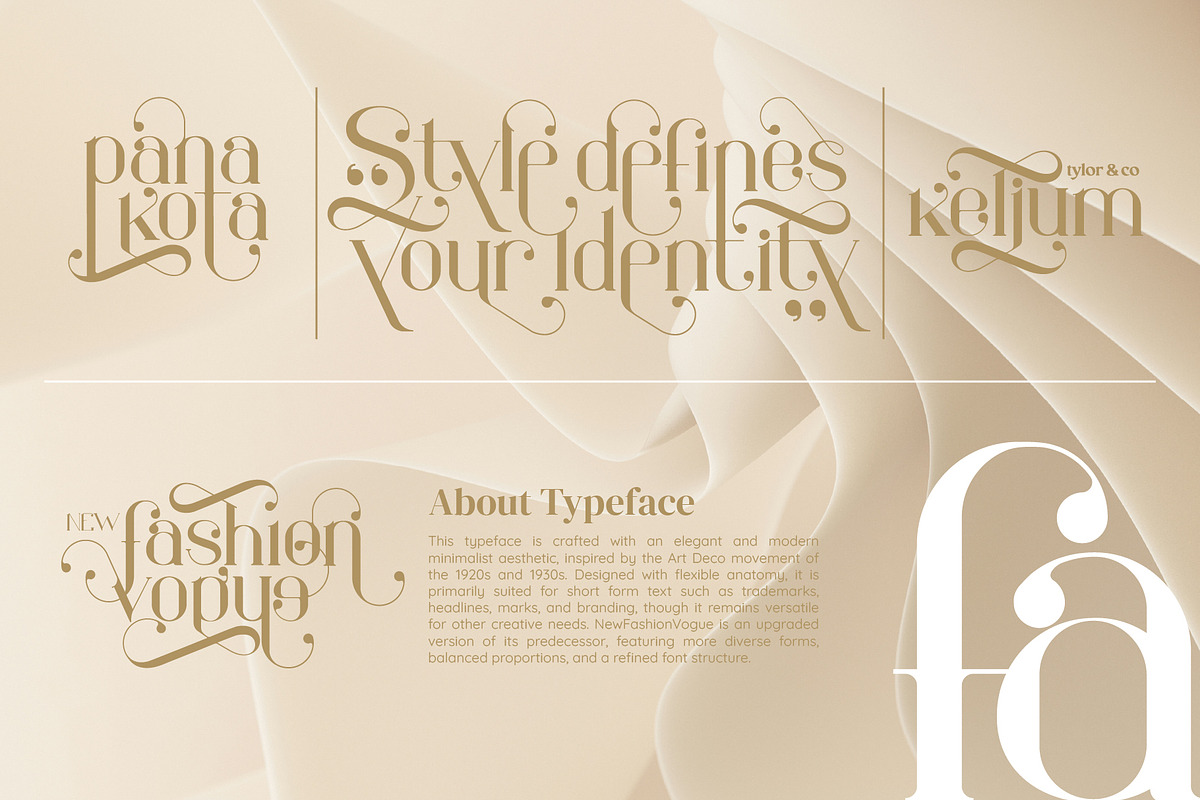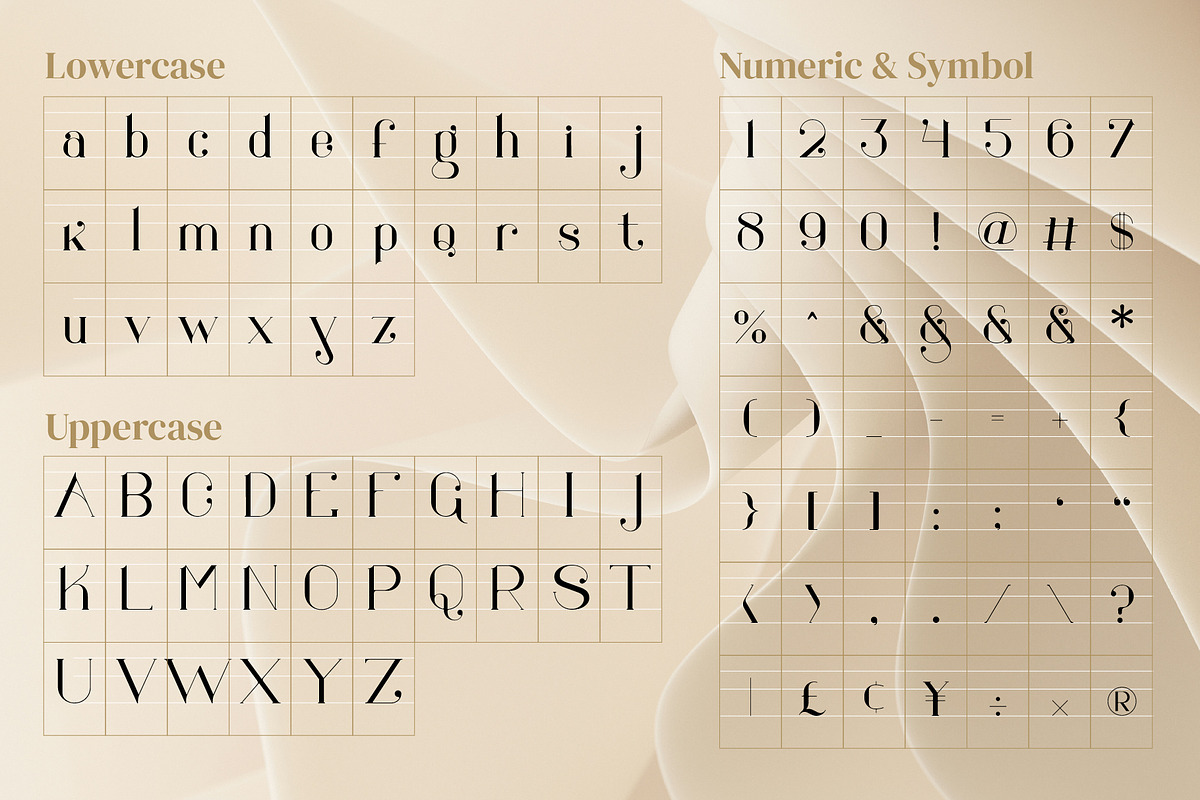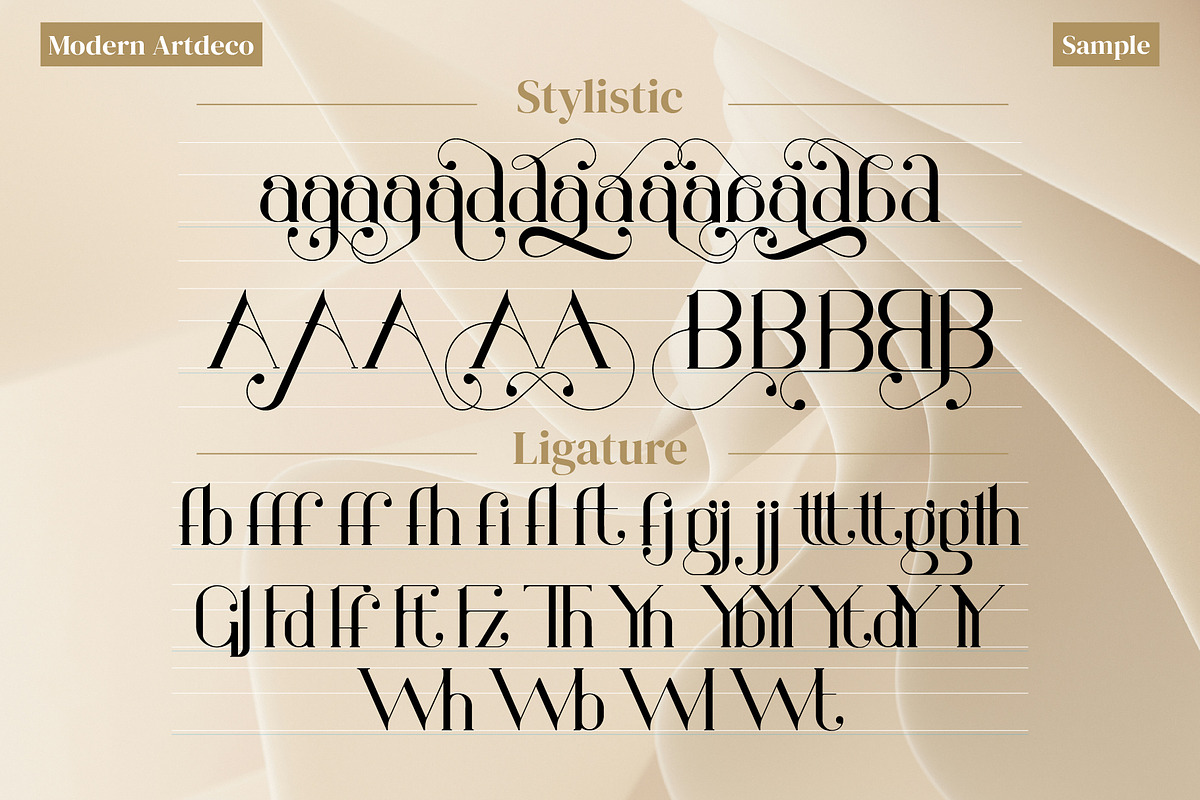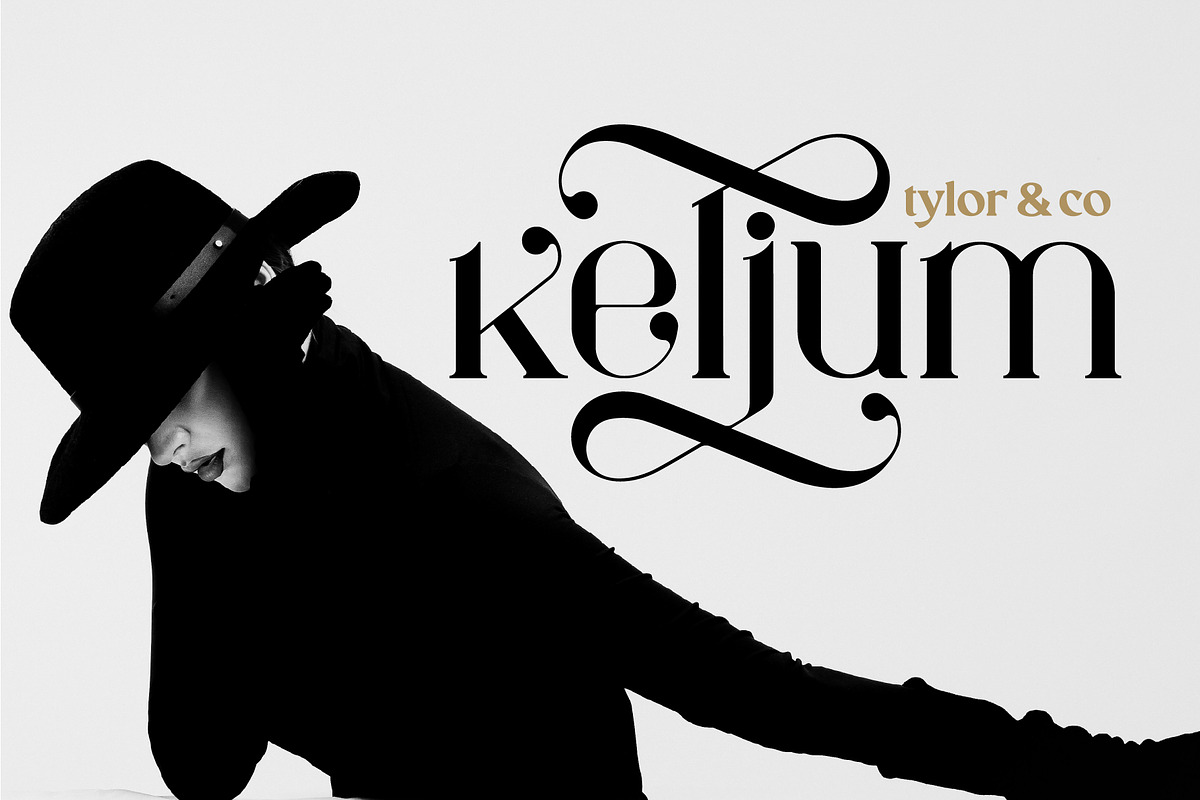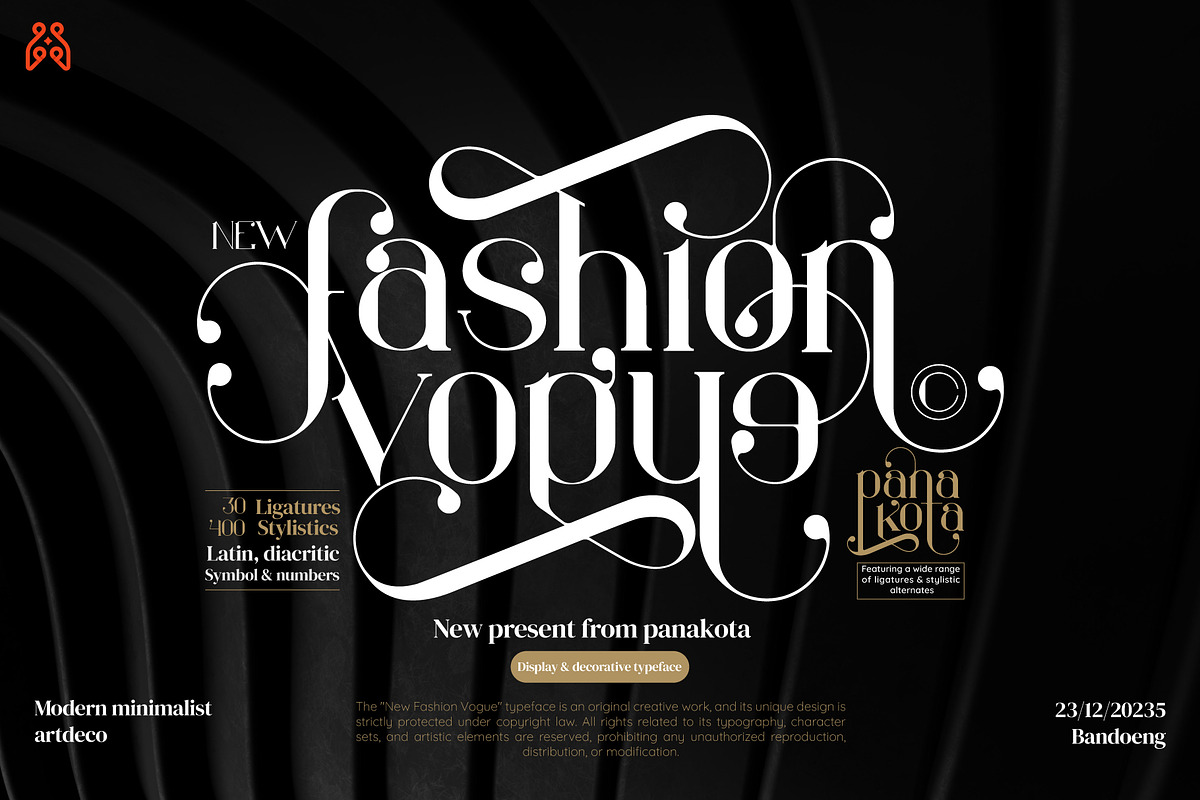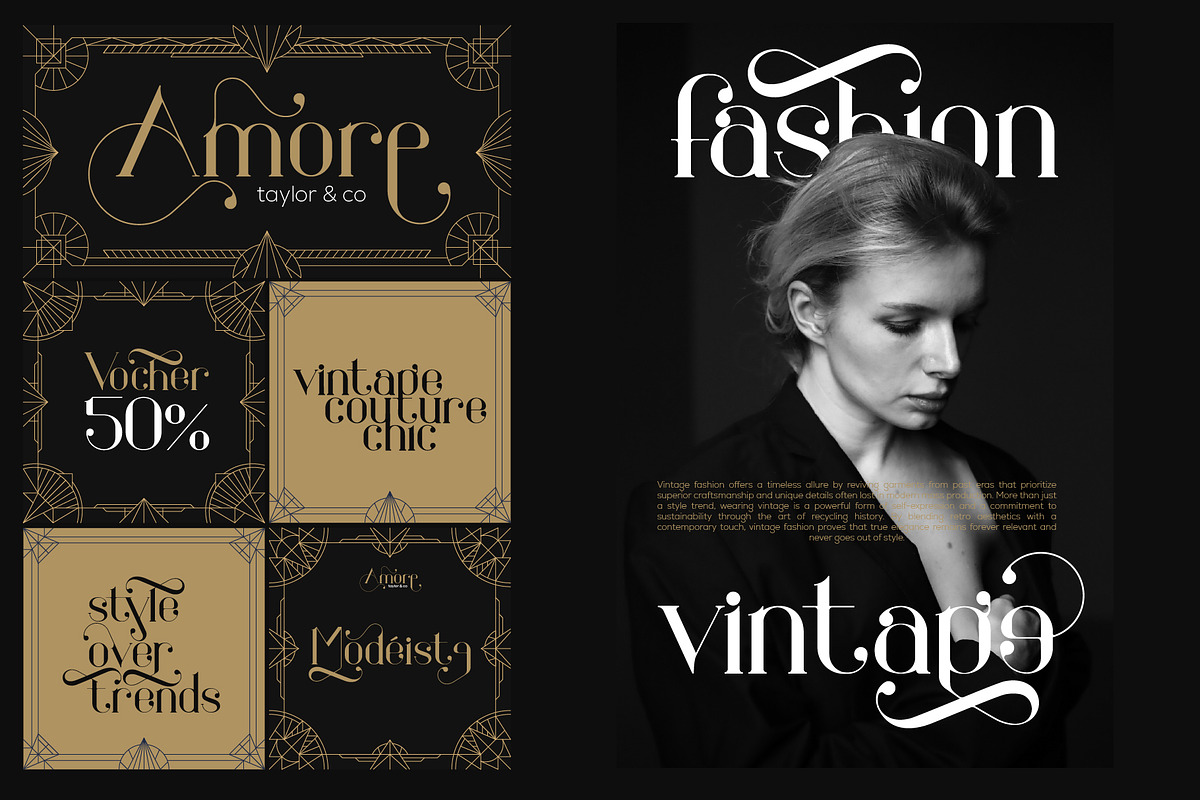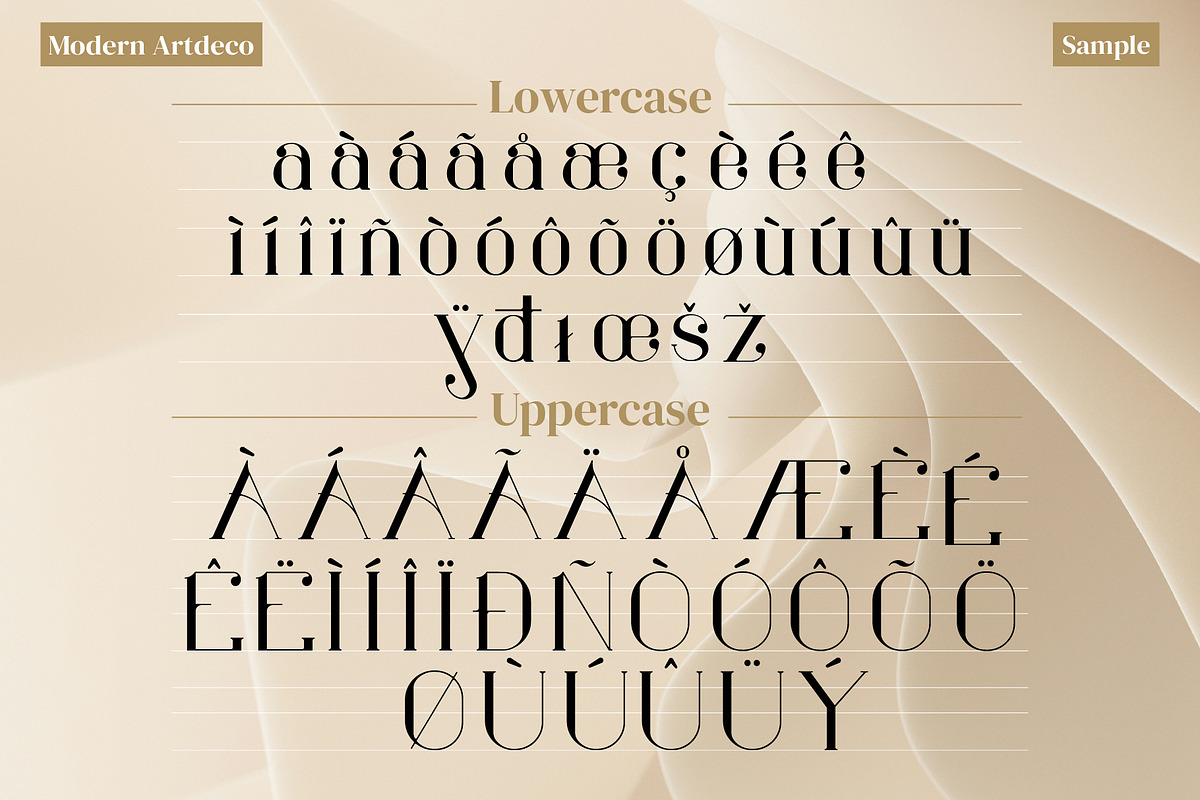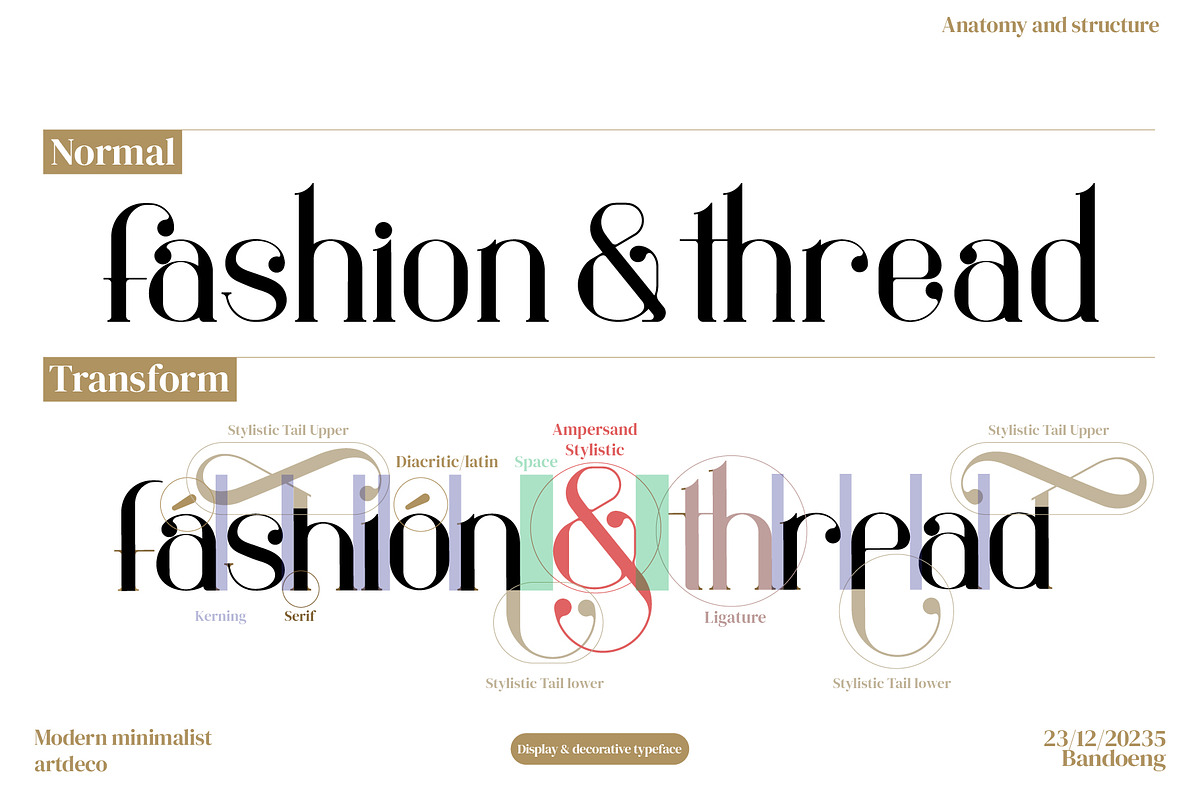
Fashion Vogue
This typeface is inspired by fashion magazines. This typeface is more elegant, clear, luxurious, and fashionable. This font is suitable to use as typography in a magazine editorial, for example if you use it as a header font, quotes, and other words with a short character count.
This font has 250 glyphs, and many more unique and stylistic characters.
Lowercase
Punctuation & Symbols
Multi**-**language
Swash
Alternative Characters
Stylistic Alternatives
Open Type Features